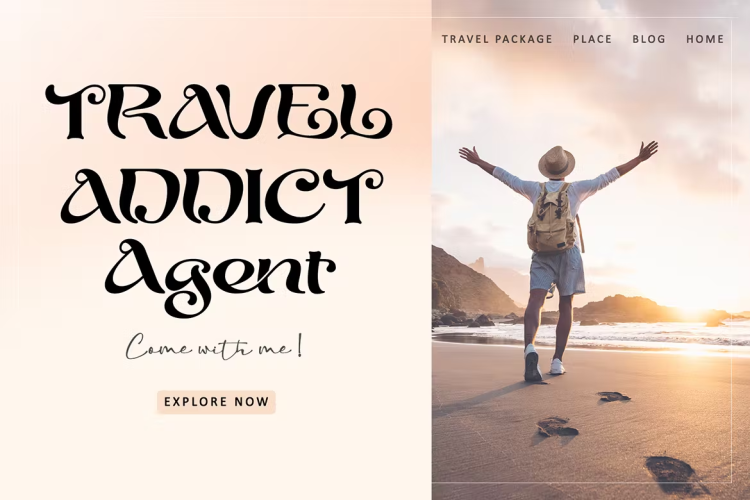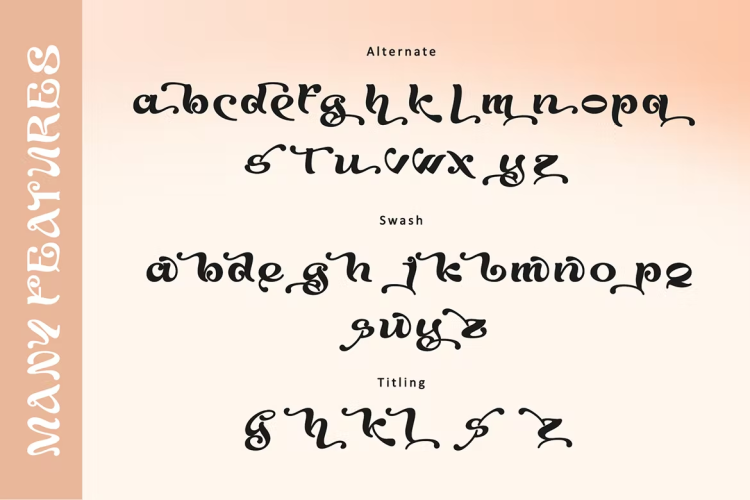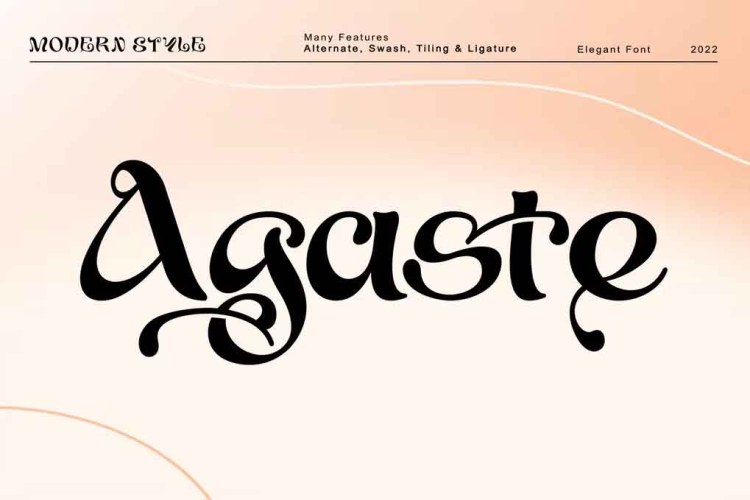
Agaste Font
Agaste is a stylish and elegant serif font. It is suitable for a wide variety of designs due to its unique and cool style. Comes with some alternates and ligatures, so y…
Agaste is a stylish and elegant serif font. It is suitable for a wide variety of designs due to its unique and cool style. Comes with some alternates and ligatures, so you can combine them to make a perfect typography design. It is ideal for your upcoming projects. Such as luxury logo and branding, classy editorial design, magazines, Packaging, poster, movie, headlines, magazine, promotions, art gallery branding, and more. This font is PUA encoded, meaning you can access all of the glyphs.
Where Agaste Font works best
Agaste Font gives long-form text a classic, trustworthy rhythm — ideal for magazine spreads, annual reports and book interiors.
Pair Agaste Font with generous letter-spacing for wordmarks in fashion, hospitality, wine and jewellery branding.
Use Agaste Font for slide titles in Keynote, PowerPoint or Google Slides to add authority without looking dated.
What is Agaste Font good for?
Agaste Font is a Serif Fonts typeface tagged Branding, Editorial, Elegant, Packaging. It works well for headlines, logos, posters, social media graphics and branding projects that need a distinctive serif fonts look.